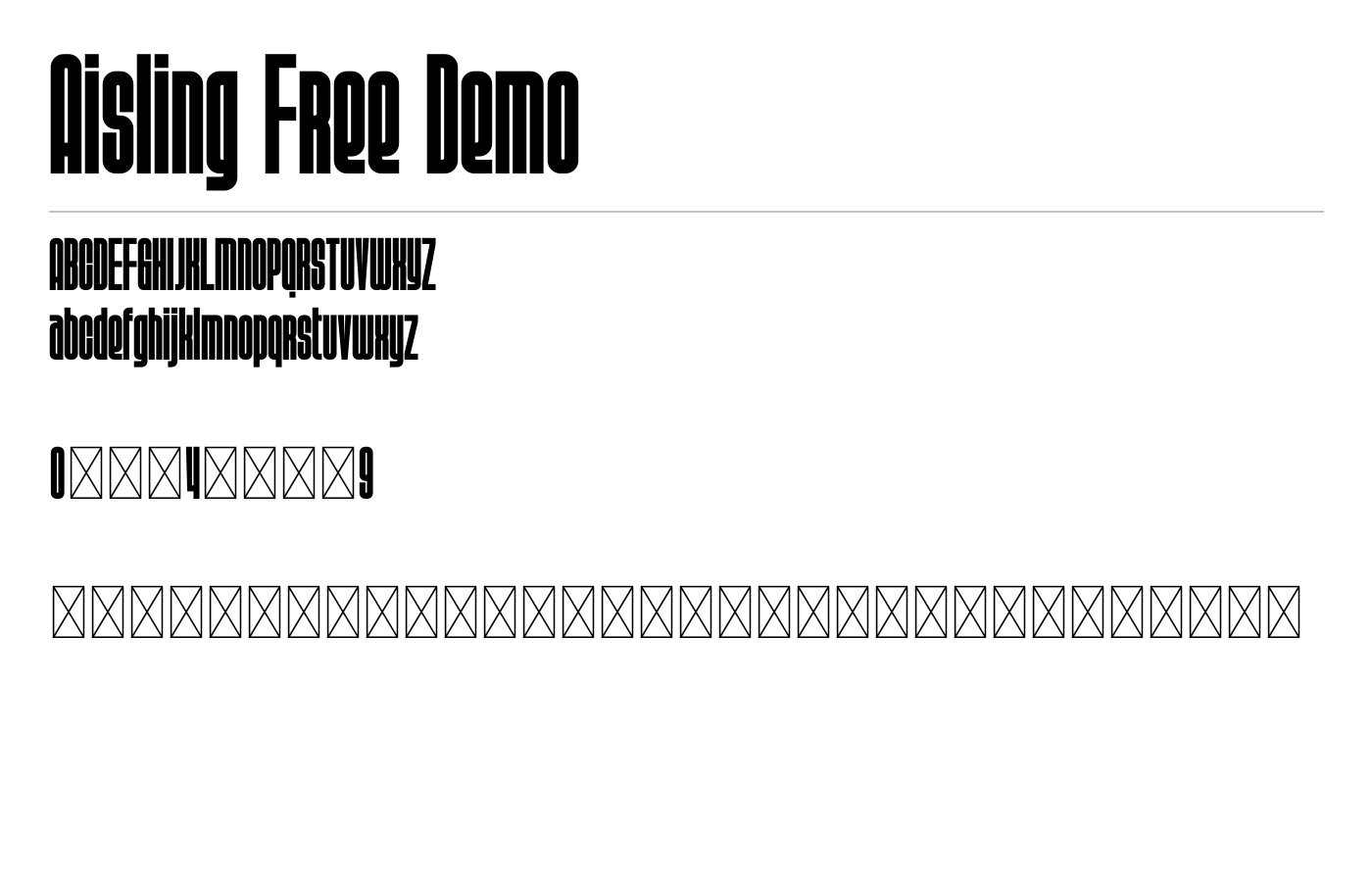
Aisling Free Demo is a condensed sans serif font with a bold, tall, and narrow structure that creates a strong visual impact. Its clean, geometric letterforms and high x-height make it ideal for headlines and display uses where a modern, striking look is desired. This font works best in branding, posters, and editorial design that need a confident and contemporary style.
Aisling Free Demo Font
About Aisling Free Demo Font